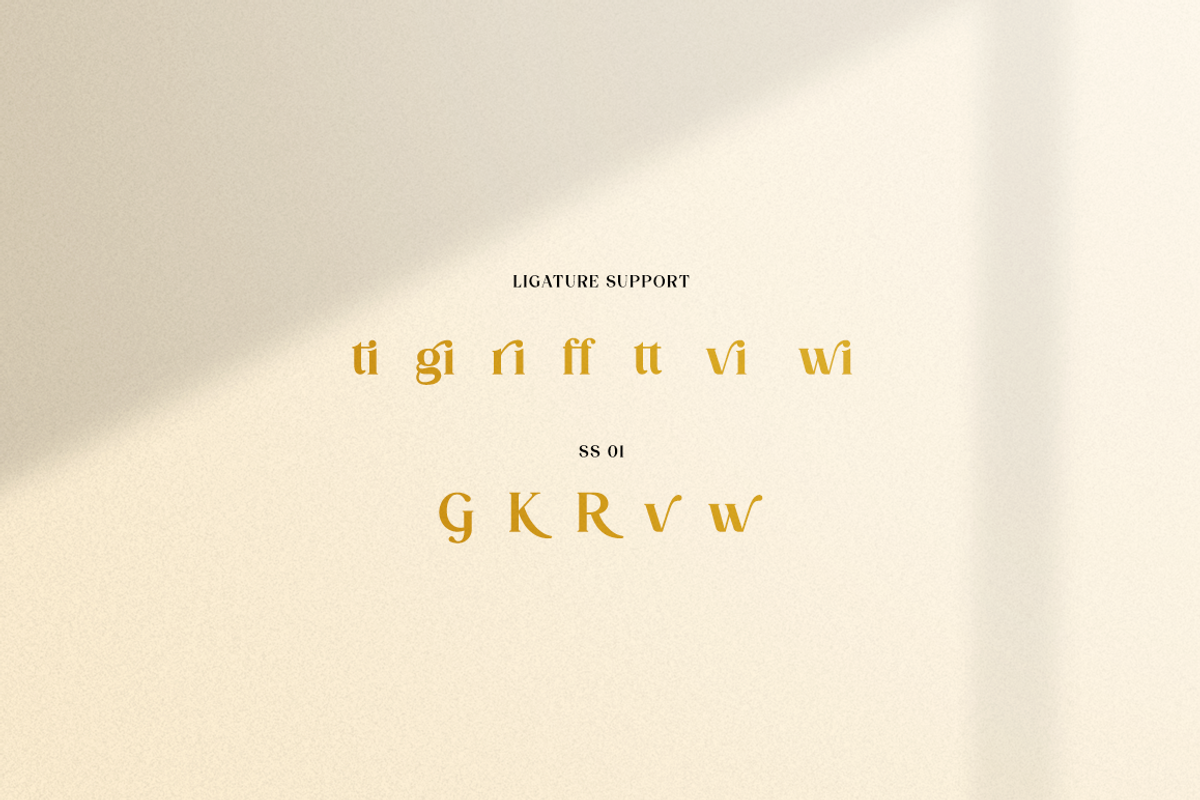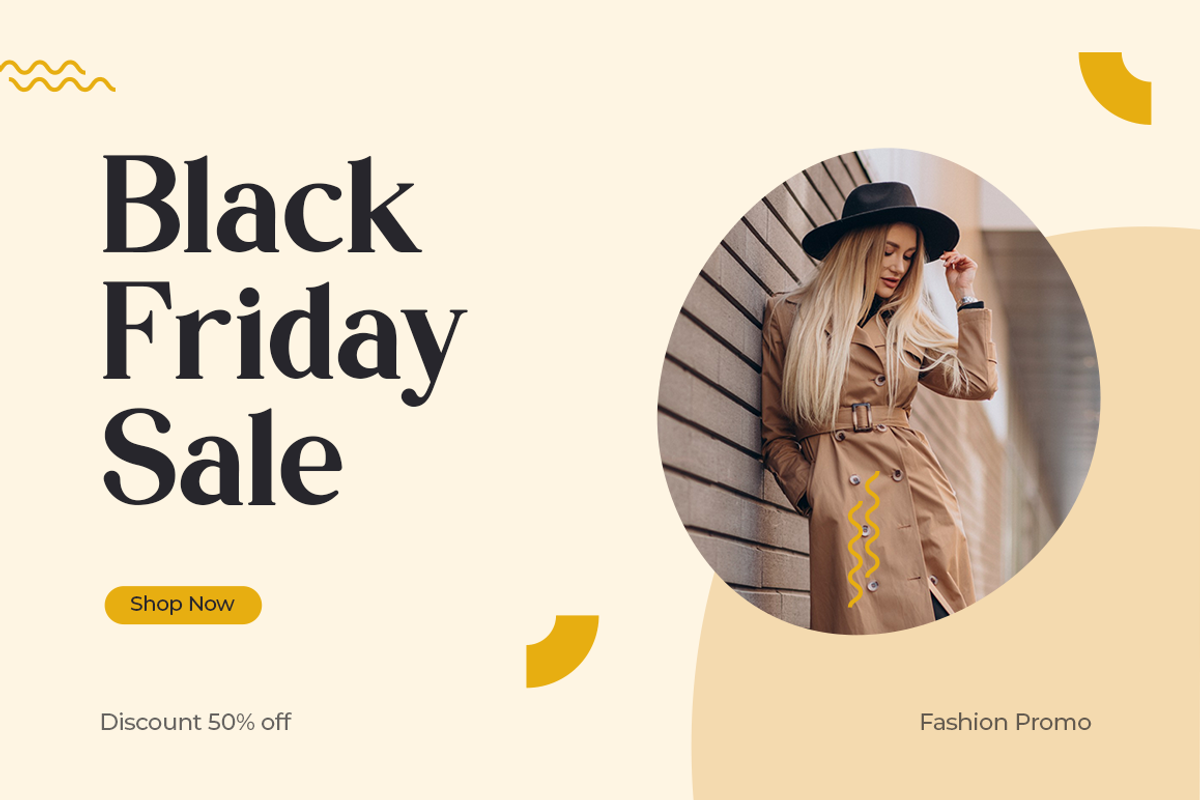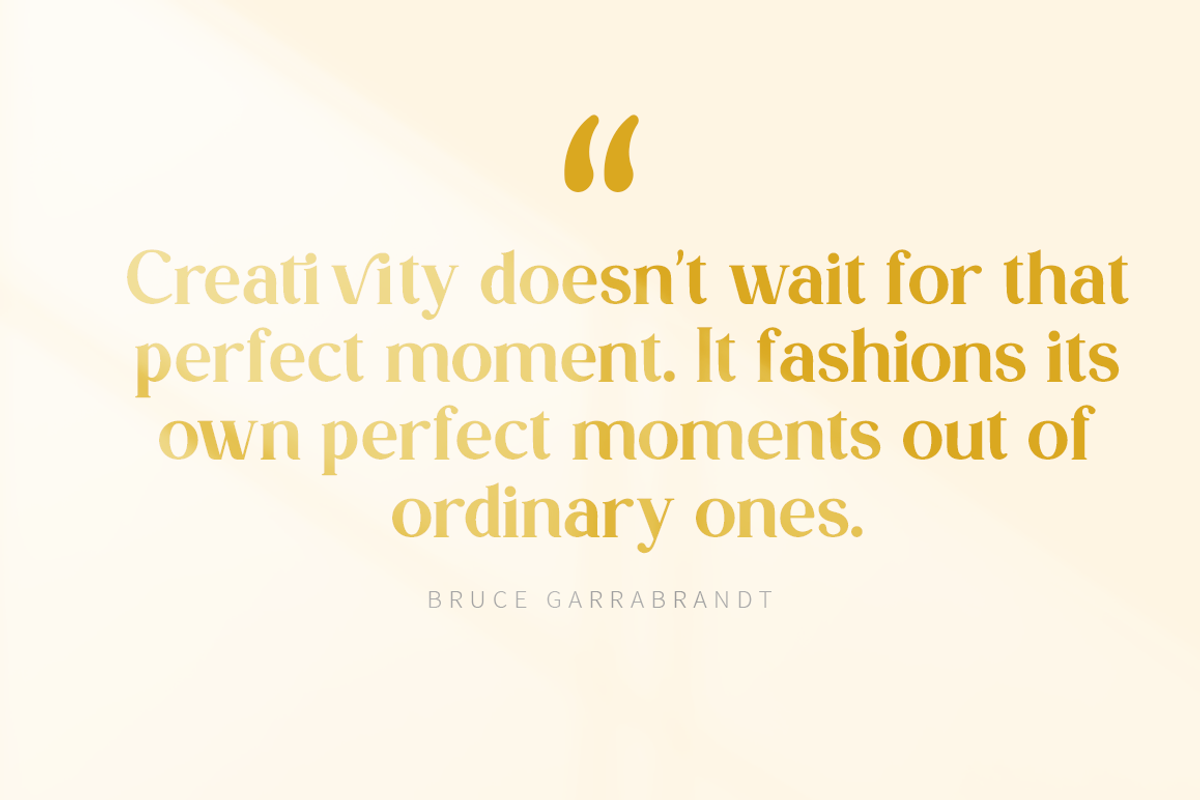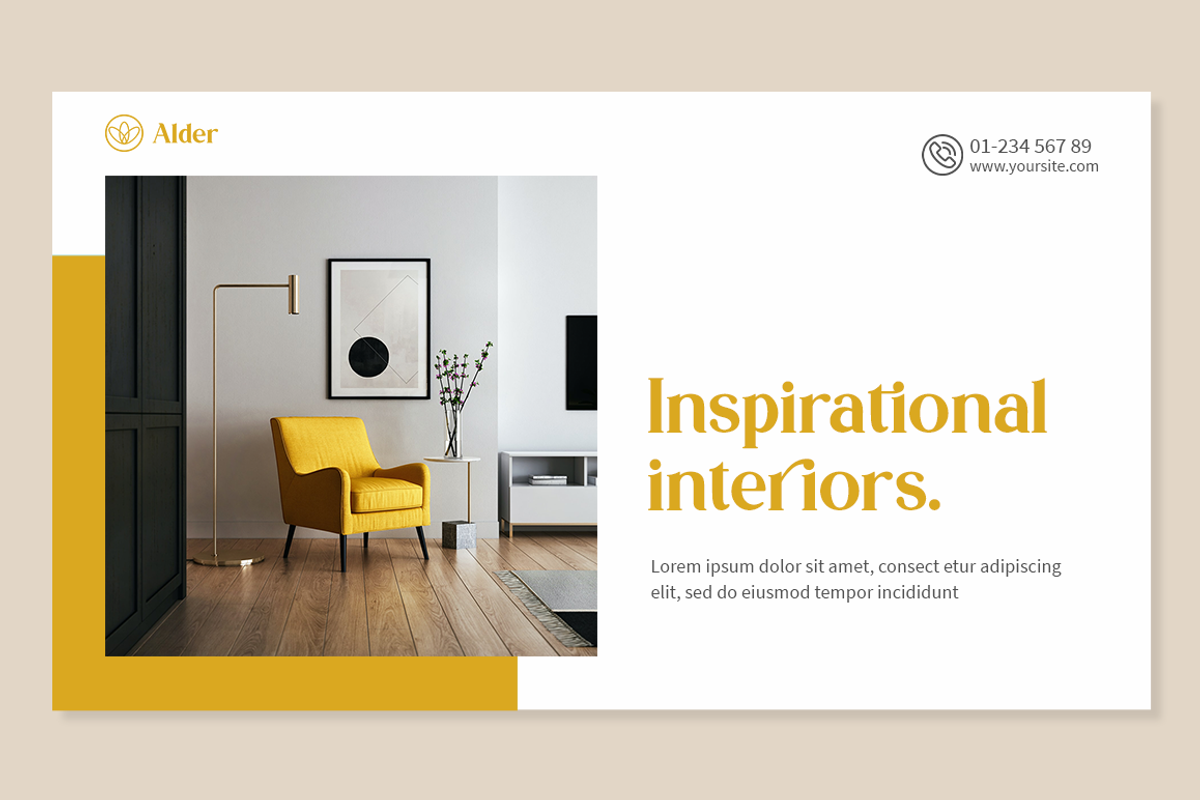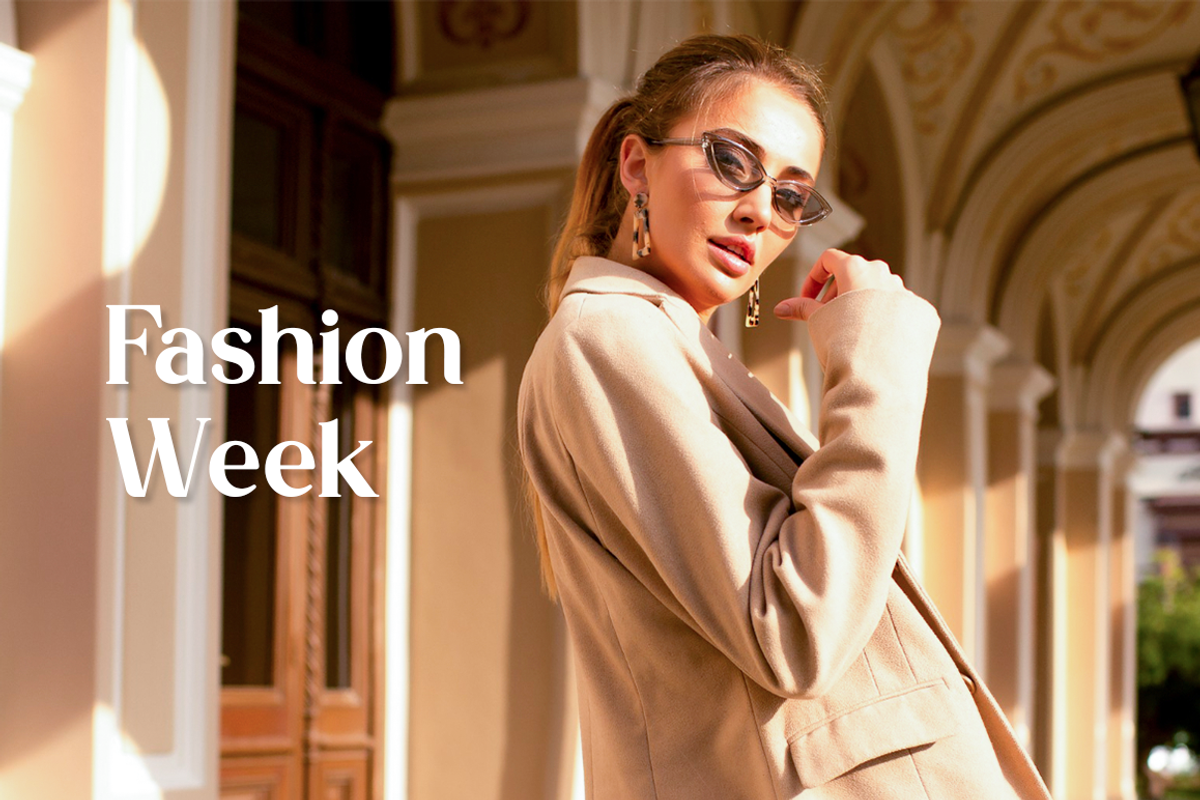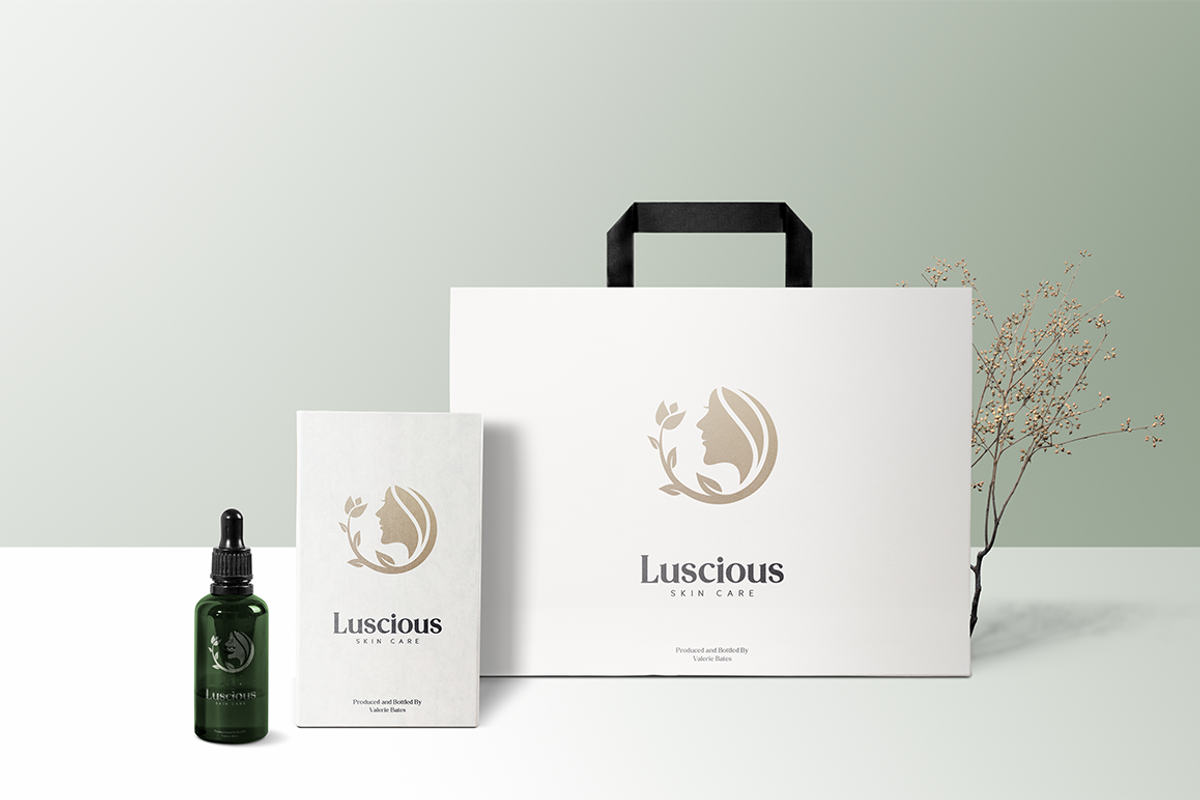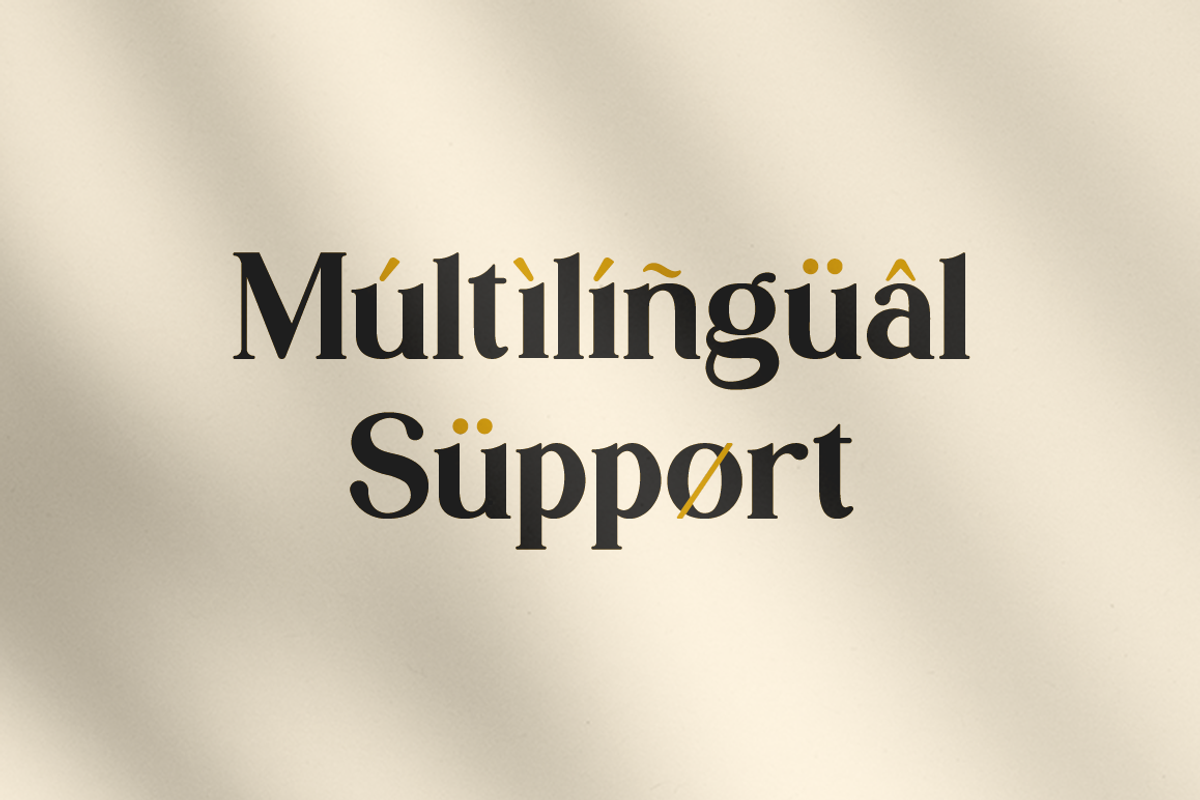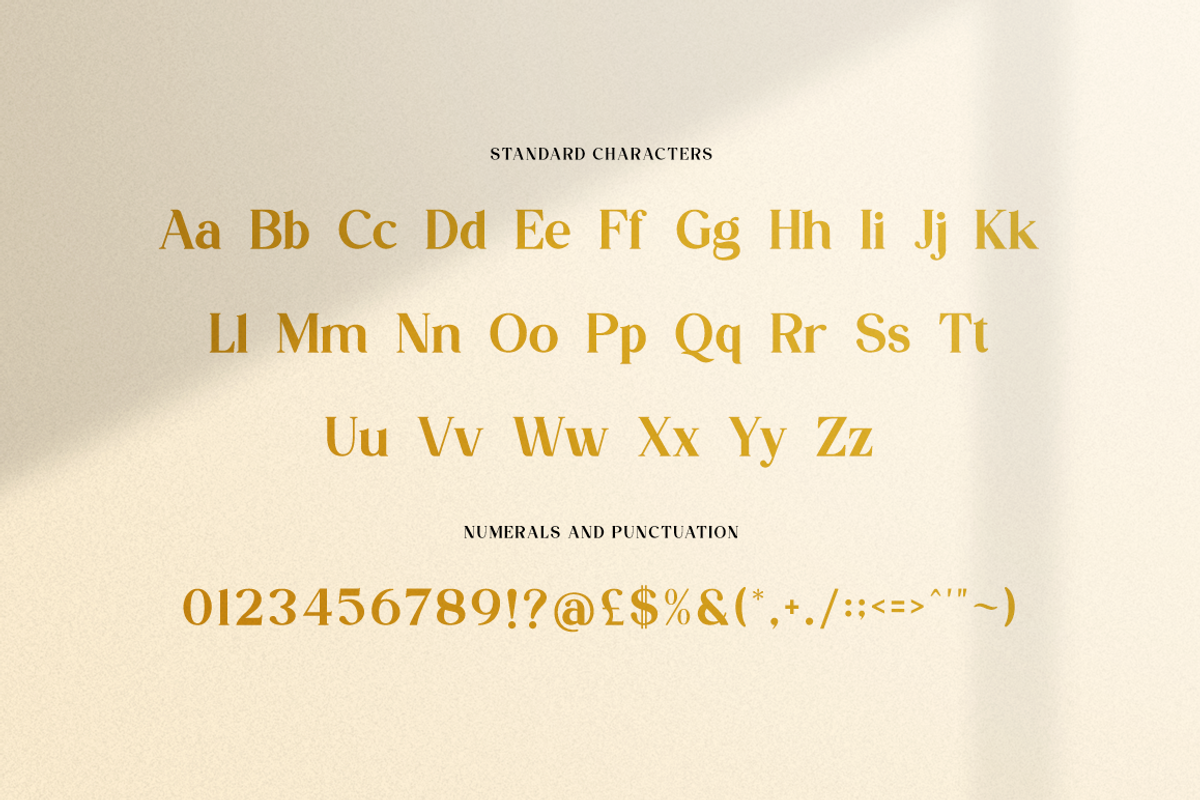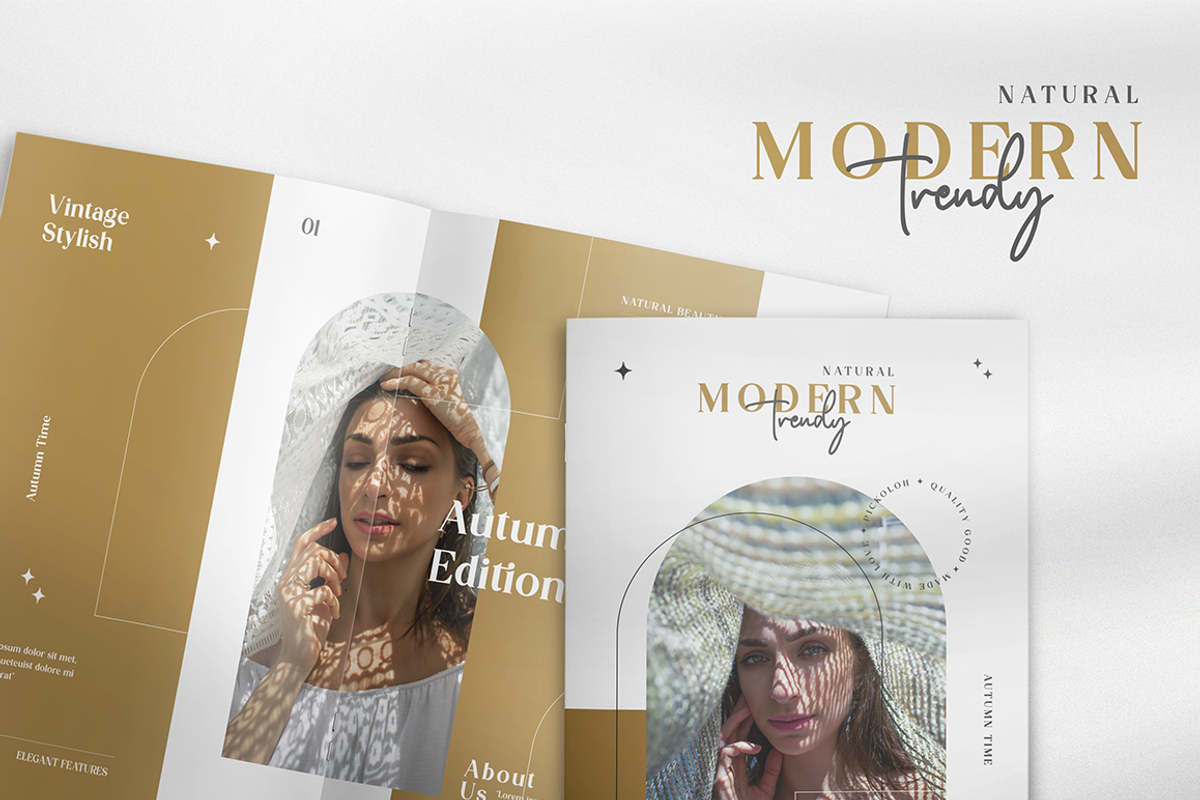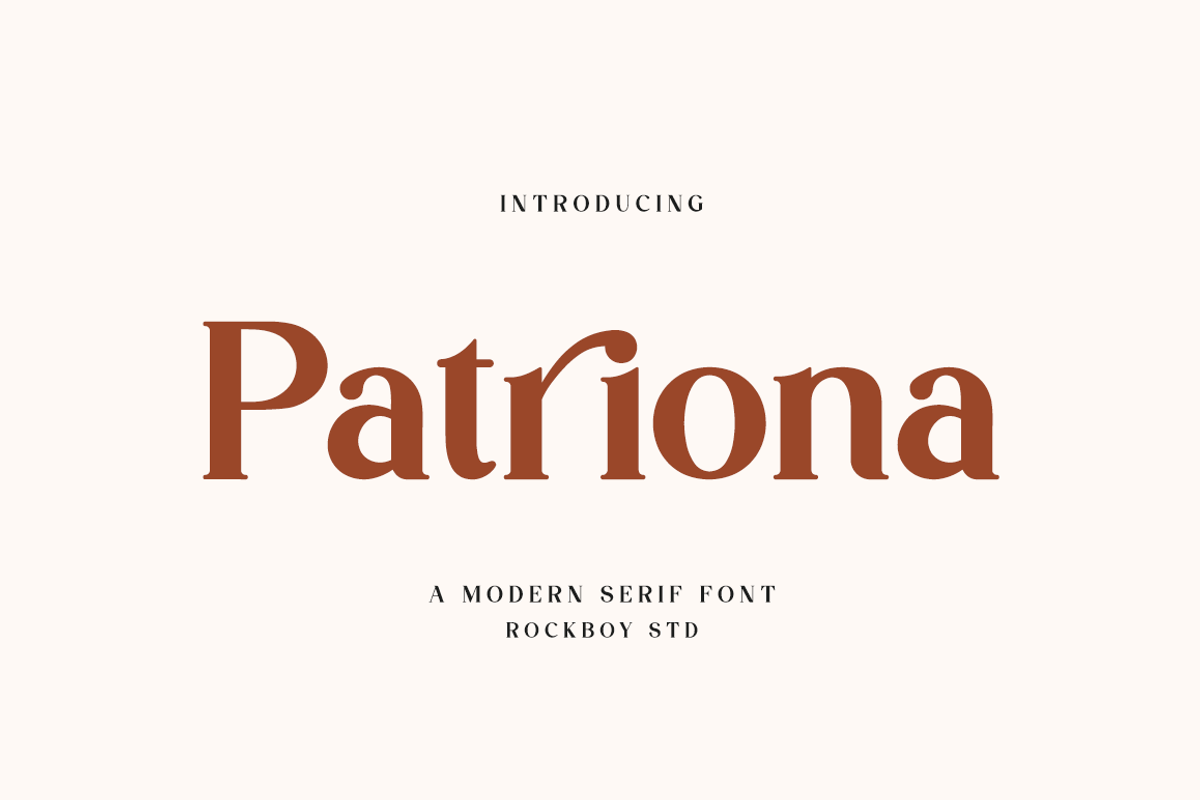
Patriona - Elegant Serif Font
Patriona is a delicate and elegant serif font. You can use this modern serif font with ligature & stylistic set for fashion, magazines, cooking websites, quotes, social media posts, labels, and many more! Add it confidently to your favorite creations and let yourself be amazed by the outcome generated.